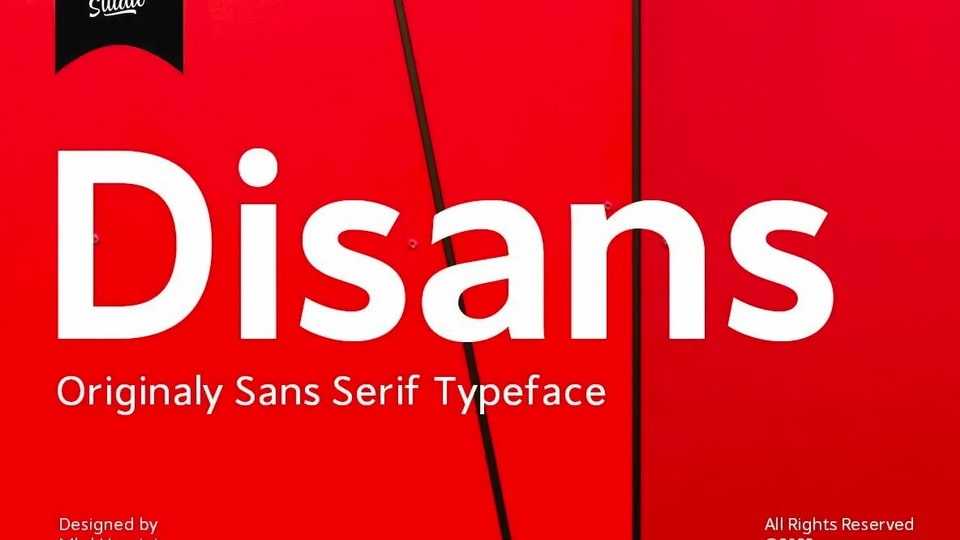
Download Disans font, a versatile sans serif typeface with a natural movement that make it looks modern, clean and legible for any project.
Designer: Mytype Studio